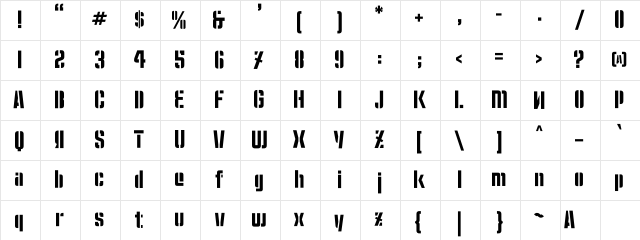
Moshka Stencil Free Font
Moshka Stencil
Style: Stencil
Foundry: Julius Woodard
Designer: Julius Woodard
Design Context for Moshka
Moshka borrows the utilitarian aesthetic of stencil lettering, with its characteristic cutaways and no-frills construction lending an industrial edge.
Pro Tip: Use Moshka at large sizes on packaging, posters, or apparel where the stencil cutaways read clearly. Avoid small sizes where those gaps become visual noise.